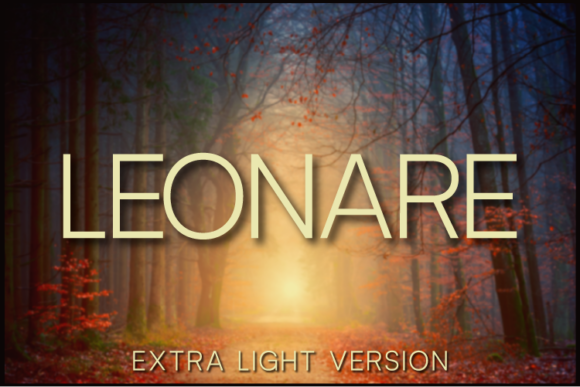
Leonare Extra Light Font
Immerse yourself in the world of Leonare Extra Light, a captivating sans serif font that exudes an irresistible charm. Each stroke of this masterpiece has been meticulously crafted by the talented artisans at Huntype, resulting in a font that seamlessly blends elegance and practicality.
Leonare's understated beauty shines through in its remarkable readability. Whether you're crafting a captivating headline that demands attention or adding a subtle touch of style to your digital creations, Leonare adapts effortlessly. Its unassuming nature allows your words to take center stage, enhancing their impact and leaving a lasting impression on your audience.
But there's more to Leonare than meets the eye. This versatile font possesses a hidden depth that empowers you to express your creativity in countless ways. Unleash your imagination and let Leonare become your artistic ally, transforming your designs into masterpieces that captivate and inspire.
Whether you're a seasoned designer or just starting your creative journey, Leonare Extra Light is the perfect companion. Its user-friendly nature makes it accessible to all, empowering you to create stunning visuals with ease. Experience the joy of effortless design with a font that effortlessly complements your every vision.
Embrace the boundless possibilities of Leonare Extra Light today and elevate your designs to new heights. With its captivating charm and unwavering versatility, this font will become your go-to choice for creating designs that resonate with your audience and leave an enduring legacy.